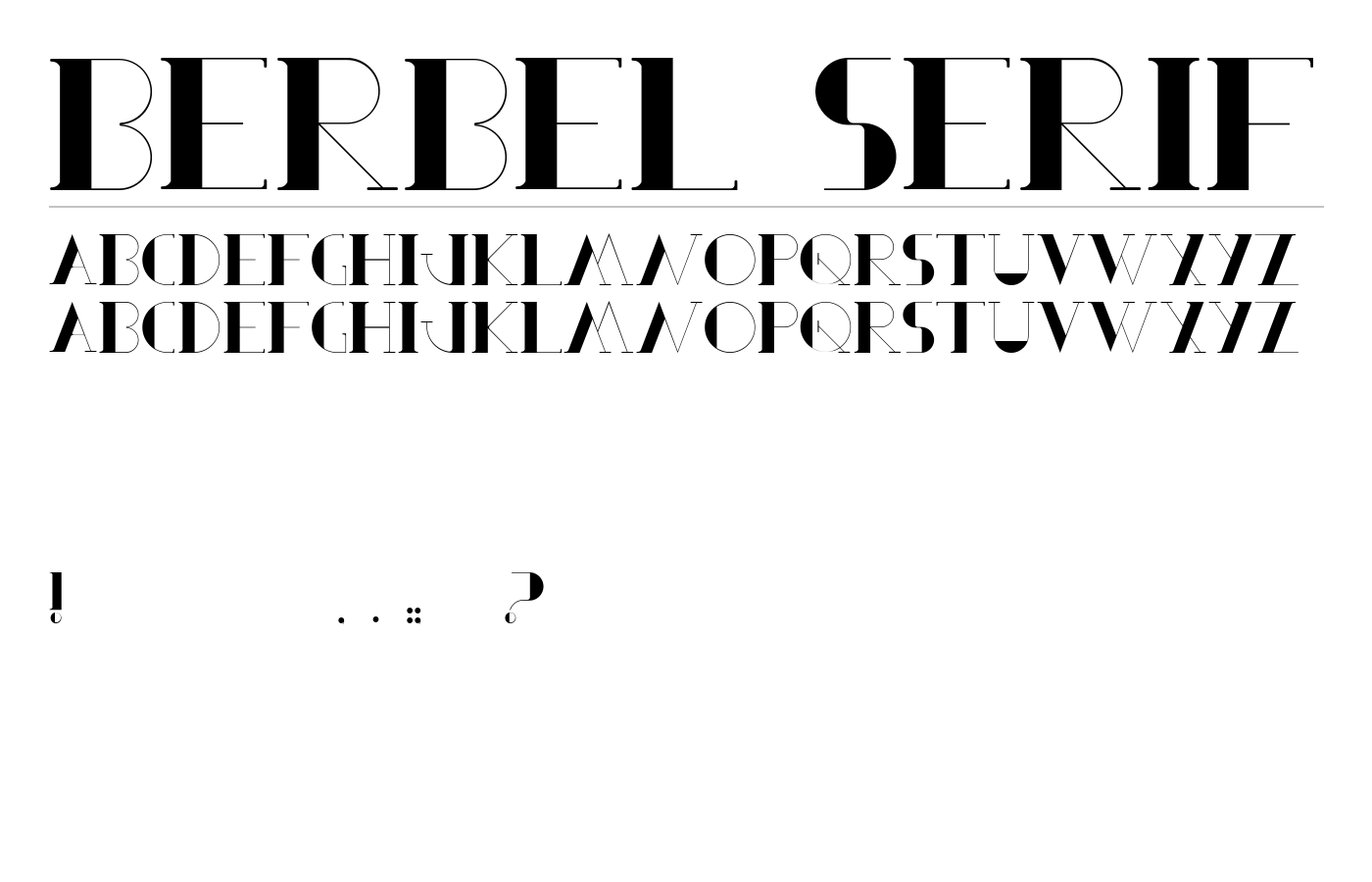
Berbel Serif is a stylish modern serif font characterized by its high contrast between thick and thin strokes and elegant, sharp serifs. With a condensed width and tall x-height, it exudes a sophisticated, artistic vibe perfect for luxury branding, editorial headlines, and fashion packaging. Its unique geometric details and refined letterforms make it ideal for creating a bold yet elegant impact in display uses.
Berbel Serif Font